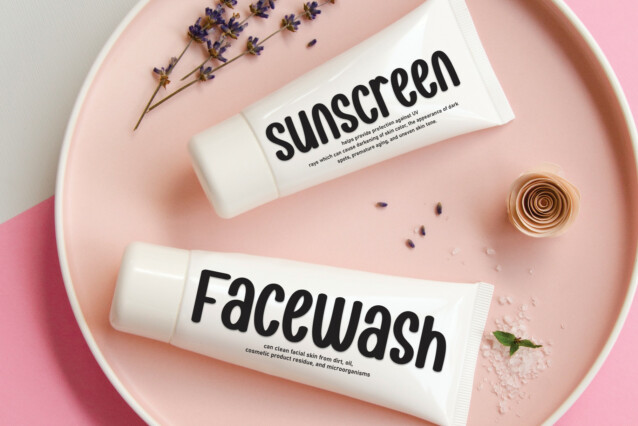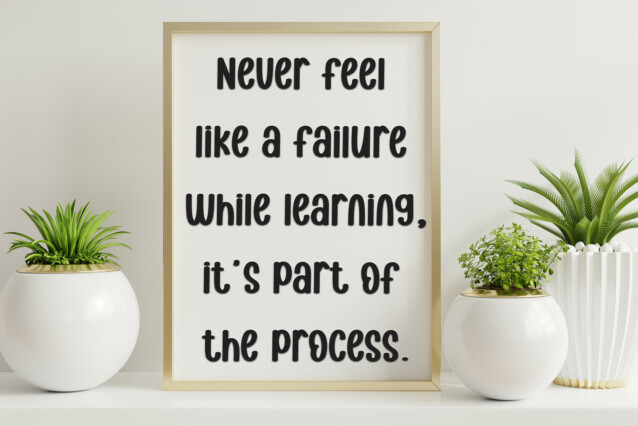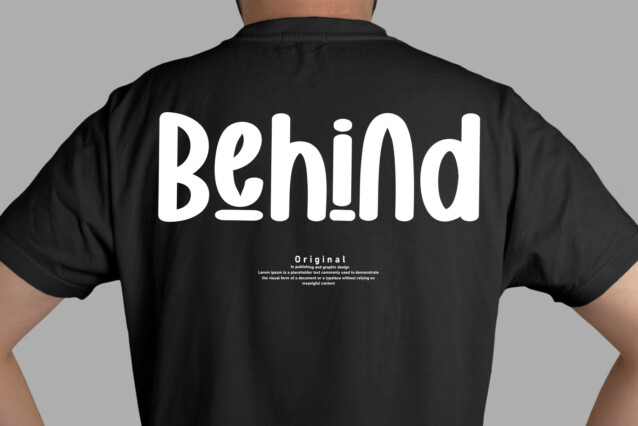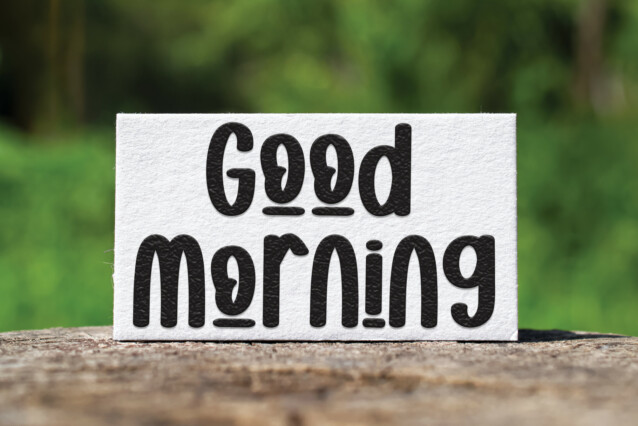
Tokyo Display Font
Tokyo Display Font is a new modern and casual display font. Tokyo will look outstanding in any context, Whether you’re looking for fonts for Instagram or calligraphy scripts for DIY projects, Tokyo Font modern font will turn any creative idea into a true piece of art!